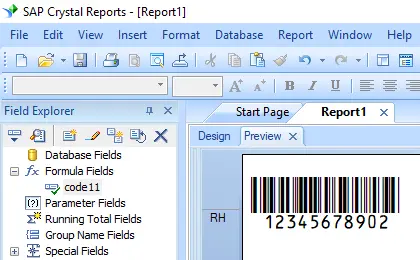
Code11 Barcode Font
Code 11 is also known as USD-8. It is designed for telecom industry.
code 11 barcode encodes numeric data and hyphen. It requires start character and stop character. Both Start and stop characters are mapped to asterisk.
Code 11 requires at least one check digit. When the string length is longer than 10, code 11 requires two check digits.
There are 14 code 11 barcode fonts in the package, as listed below. Each font shows its aspect ratio by font name. Those fonts with “Hr” in their names have human readable text underneath the barcode.
For example, Code11MHr means ‘medium aspect ratio’, with human readable text.
Code11XXL means “XXL aspect ratio, no human readable text”.
Here is the list of Barcodesoft code11 Barcode Fonts
| Aspect Ratio | With Human Readable | Without Human Readable |
|---|---|---|
| XXS | code11XXSHr | code11XXS |
| XS | code11XSHr | code11XS |
| S | code11SHr | code11S |
| M | code11MHr | code11M |
| L | code11LHr | code11L |
| XL | code11XLHr | code11XL |
| XXL | code11XXLHr | code11XXL |